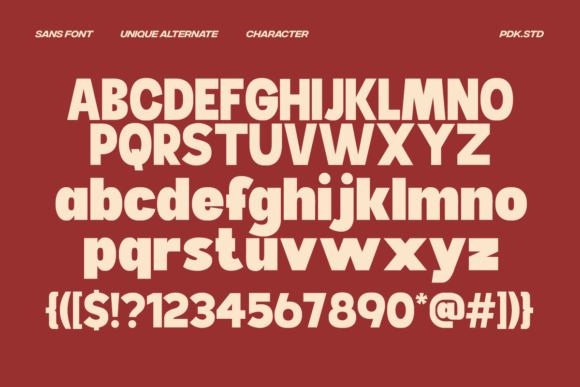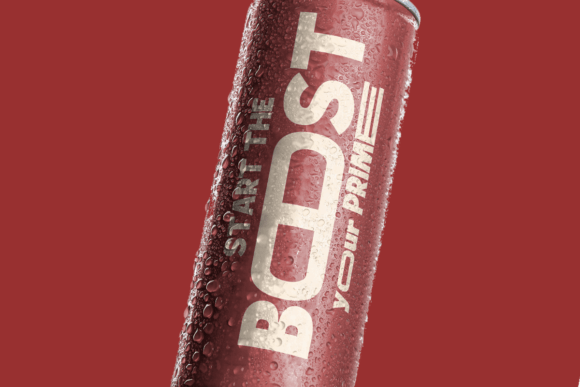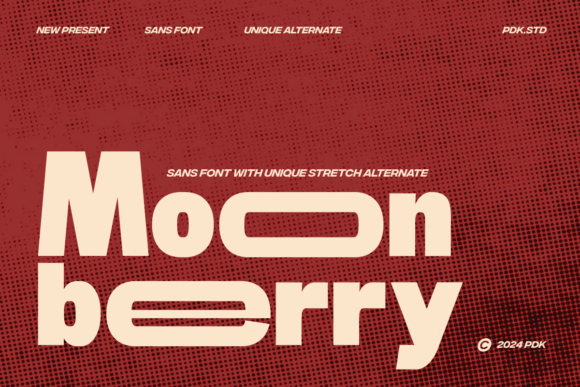
Moon Berry Font
Moon Berry Font, a headline font that captures the essence of a bygone era with a delightful retro feel. Its bold strokes and quirky shapes, combined with a touch of stretch, reminiscent of futuristic posters and modern advertisements. Moon Berry isn’t just a font, it’s a storyteller, bridging the gap between past and present with a modern twist.